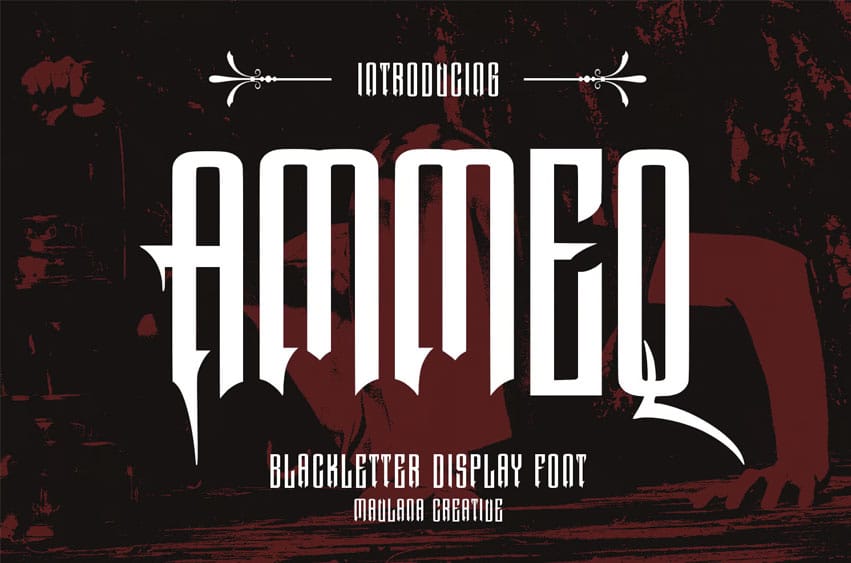
Ammeq Font is a handmade Modern Victorian handlettering, which combines modern and classic typography with some awesome alternates. Yes, we are back to the early 1800s, bringing a classic touch to this decade.